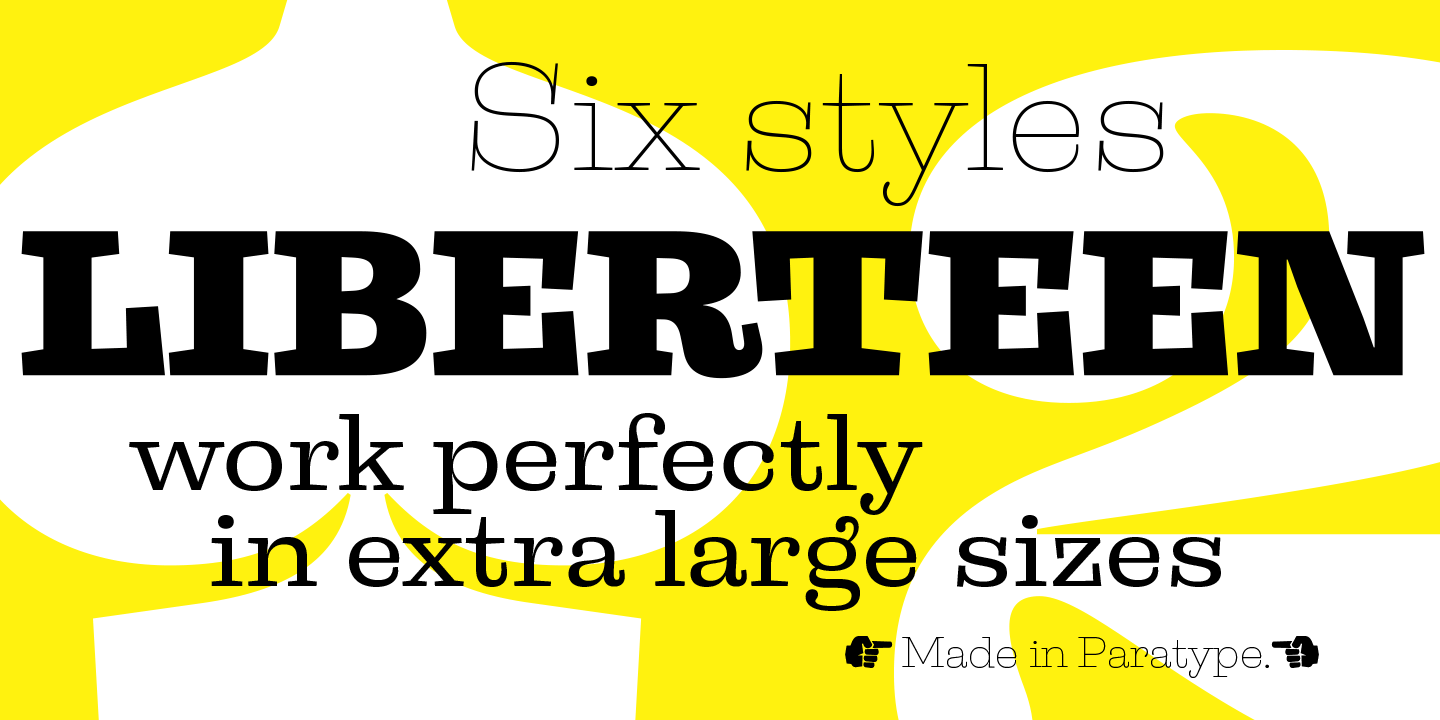
The Liberteen Font is ideal for youthful contemporary design projects including teen lifestyle magazines, youth-oriented brand identities, student organization materials, young adult book covers, educational campaign posters, campus event promotions, teen fashion marketing, and progressive social movement communications. This vibrant typeface brings energetic freedom and youthful rebellion to any design project celebrating teenage independence and young adult empowerment with contemporary edge.
What makes Liberteen Font so exciting is its dynamic embodiment of teenage liberation with bold, expressive letterforms that capture the essence of youthful independence and generational change. The letters feature energetic characteristics with rebellious spirit that creates an immediate sense of freedom and progressive thinking. This distinctive youthful character makes it perfect for brands and projects that want to communicate teenage empowerment, social progress, and the compelling appeal of young adult culture and generational independence.
The Liberteen Font family typically includes regular and bold weights, often with energetic variations and youth-inspired decorative elements. Many versions feature freedom symbols, progressive glyphs, and contemporary design elements that enhance its authenticity for youth culture and educational applications.
Whether you're designing for youth organizations, educational institutions, or progressive campaigns, Liberteen Font Free Download provides the perfect solution for projects that need to convey youthful energy and progressive values. This font transforms standard youth communications into dynamic designs that immediately communicate teenage empowerment, generational freedom, and the inspiring appeal of young adult independence to audiences supporting youth development and progressive social change.